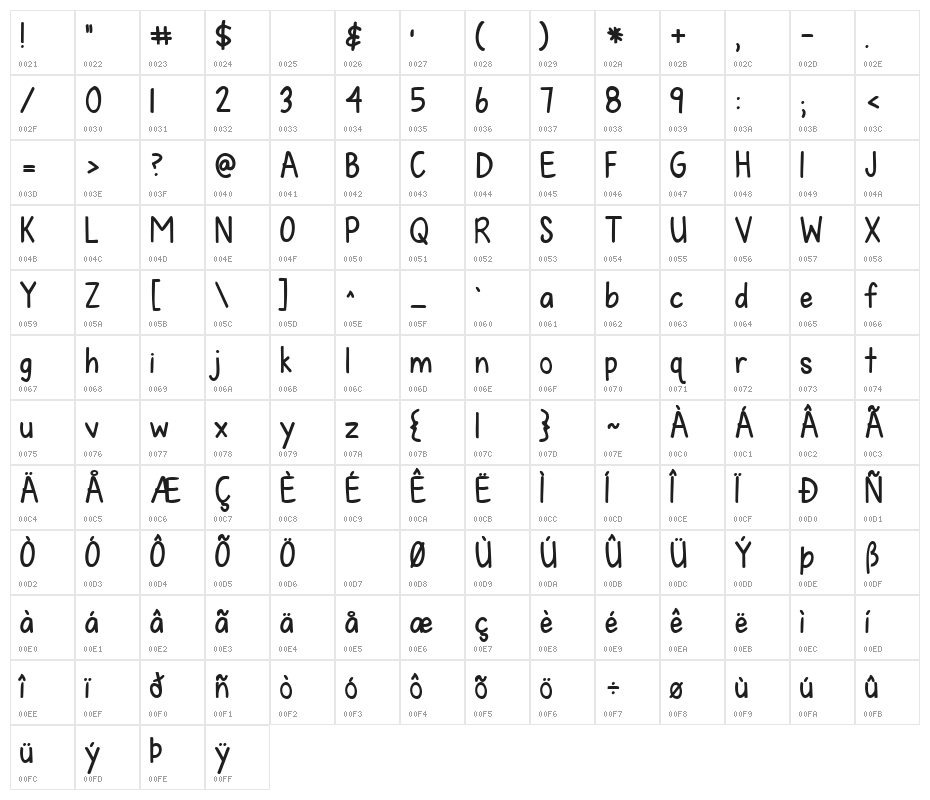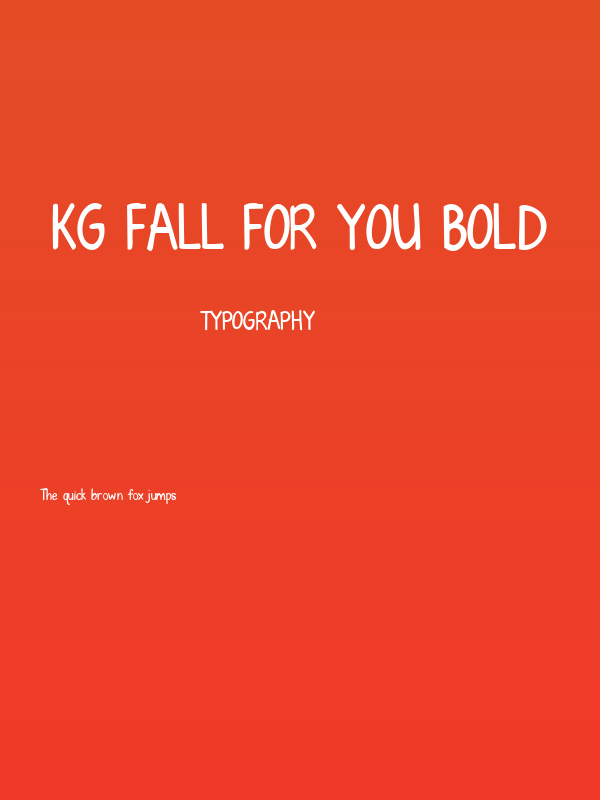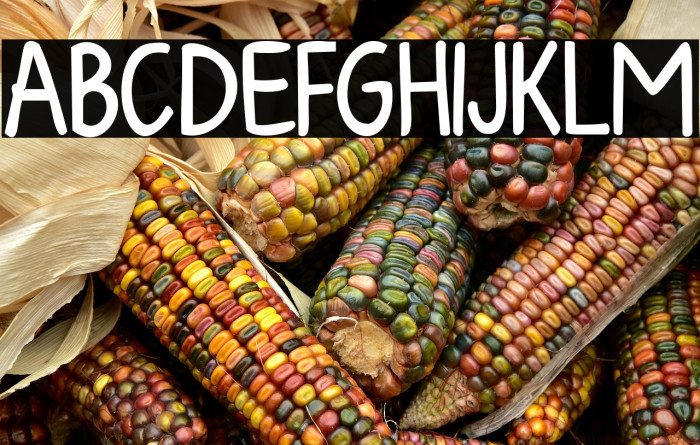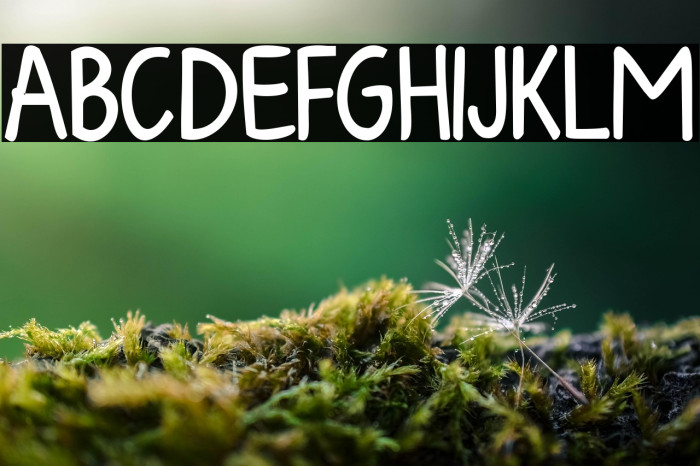
KG Fall For You Bold Font
KG Fall For You Bold Description
This playful and bold font features a handwritten style with a casual and friendly appearance. The letters are rounded and slightly irregular, giving it a whimsical and approachable feel. The uppercase and lowercase characters maintain a consistent style, with smooth curves and a uniform stroke width. The numbers and special characters complement the alphabet with the same playful design. This font is perfect for projects that require a personal touch or a fun, informal vibe.
| Proposed Projects | Ideal for children's books, greeting cards, playful branding, and social media graphics. |